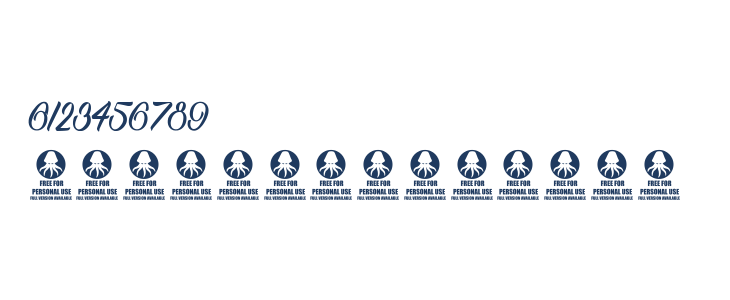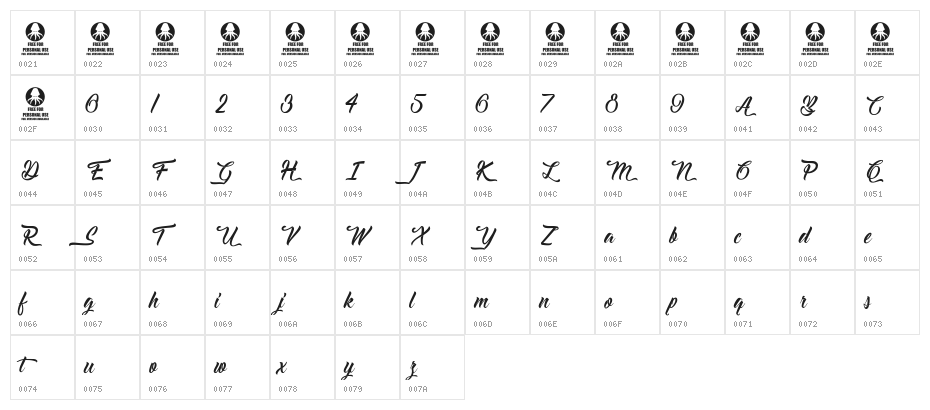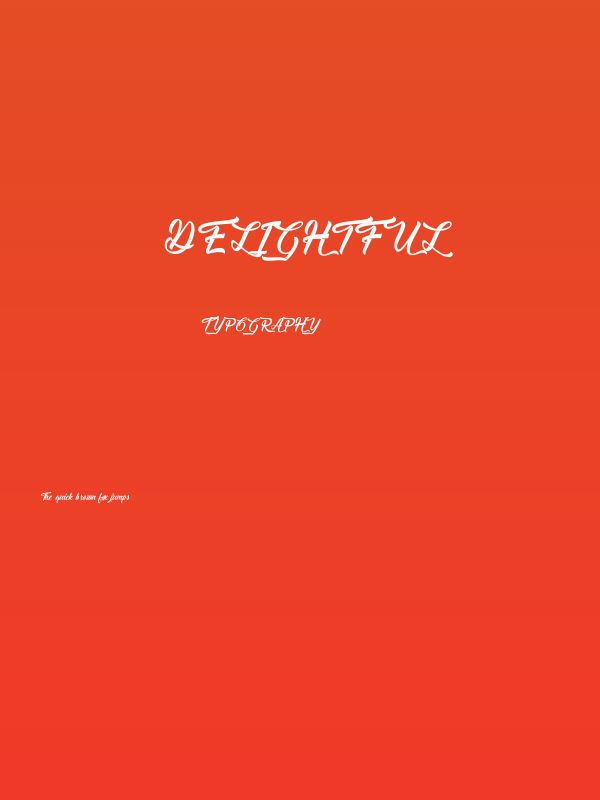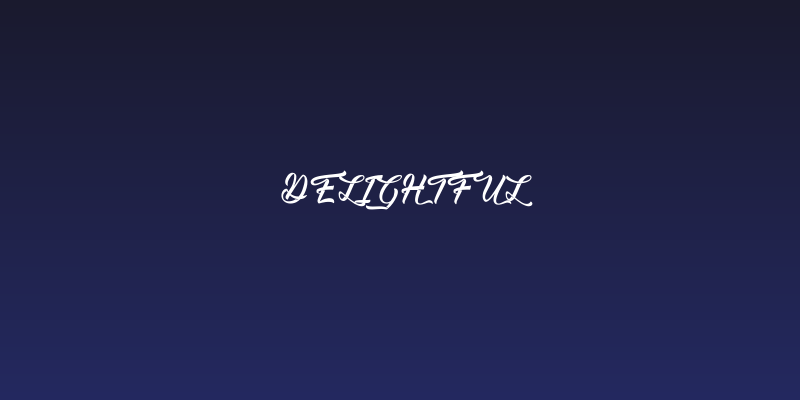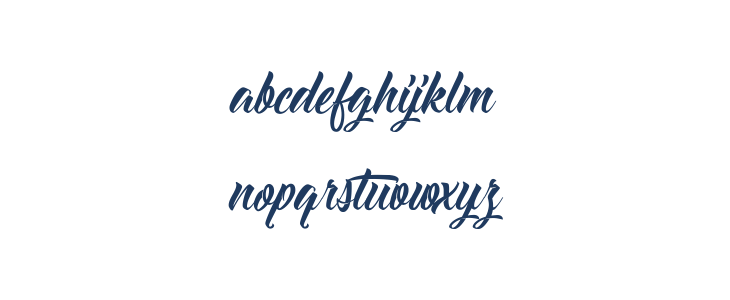
Delightful Font
Delightful Description
This font exudes a classic and elegant script style, characterized by its flowing, cursive letters that mimic traditional handwriting. The uppercase letters are bold and sweeping, with intricate loops and flourishes that add a touch of sophistication. The lowercase letters maintain a consistent flow, with smooth connections between each character, enhancing readability while preserving the font's decorative nature. The numerals are equally stylish, featuring a consistent stroke width that complements the overall aesthetic. Special characters like the ampersand and question mark are crafted with the same attention to detail, ensuring a cohesive look across all glyphs.
| Proposed Projects | Ideal for wedding invitations, elegant branding, greeting cards, and high-end product packaging. |